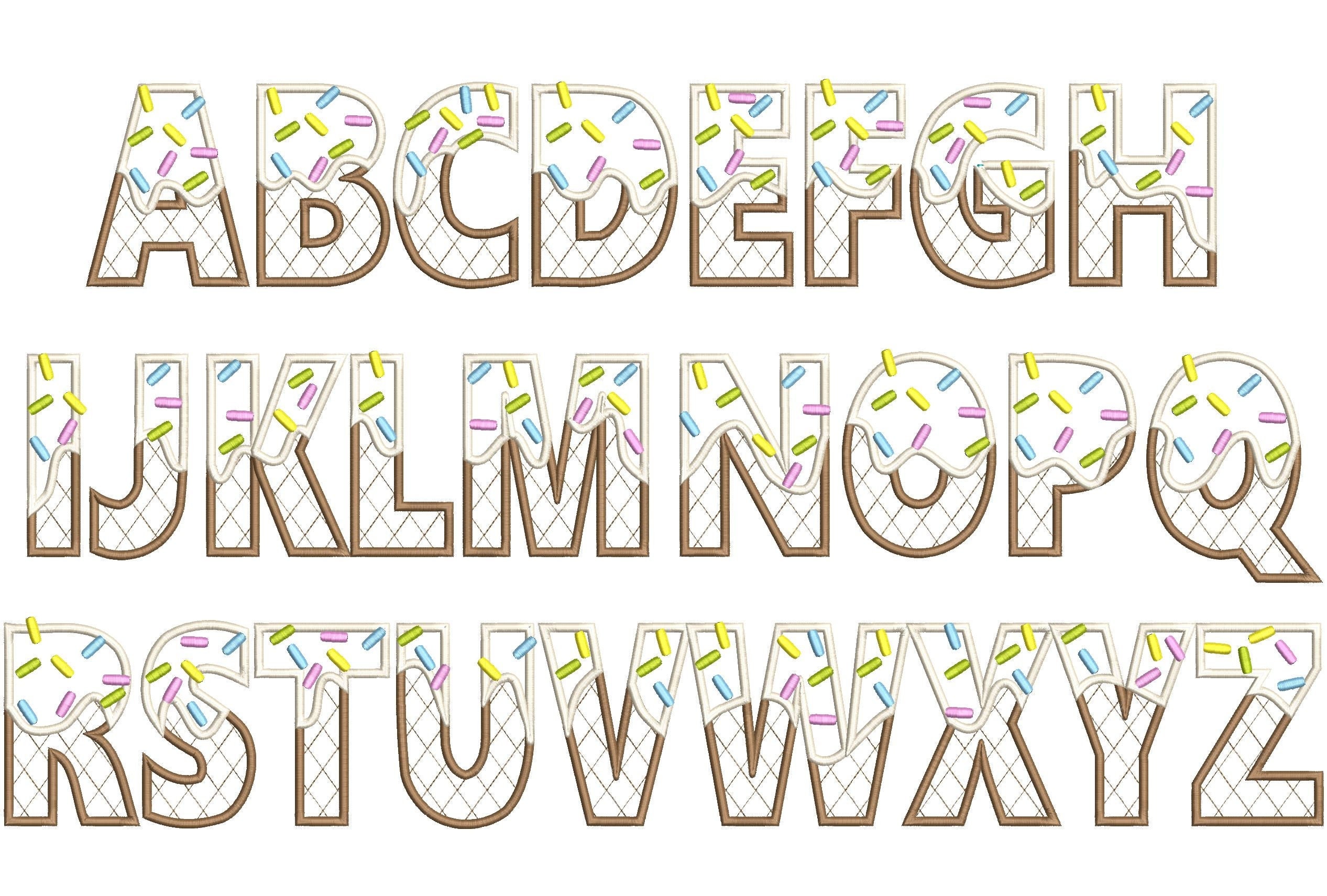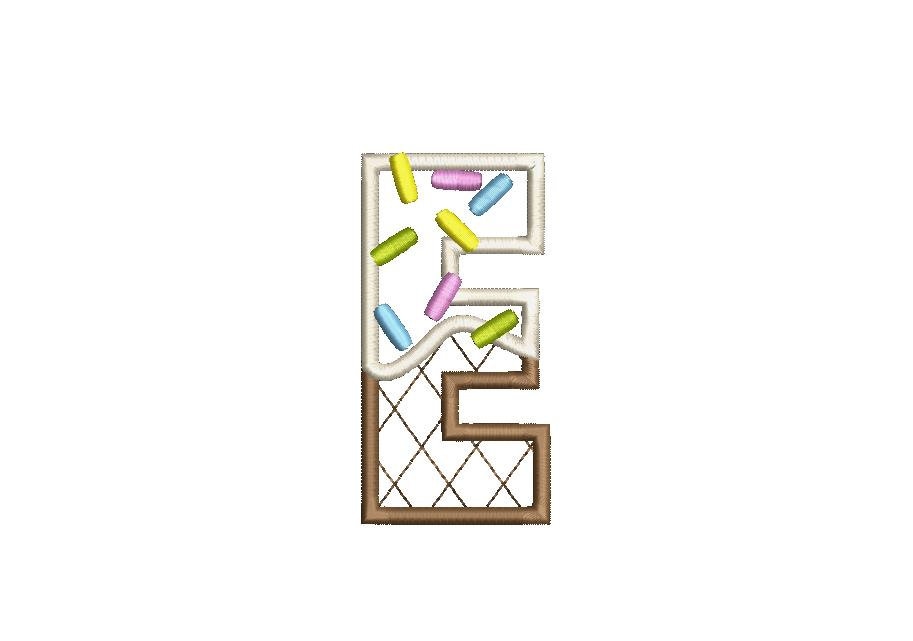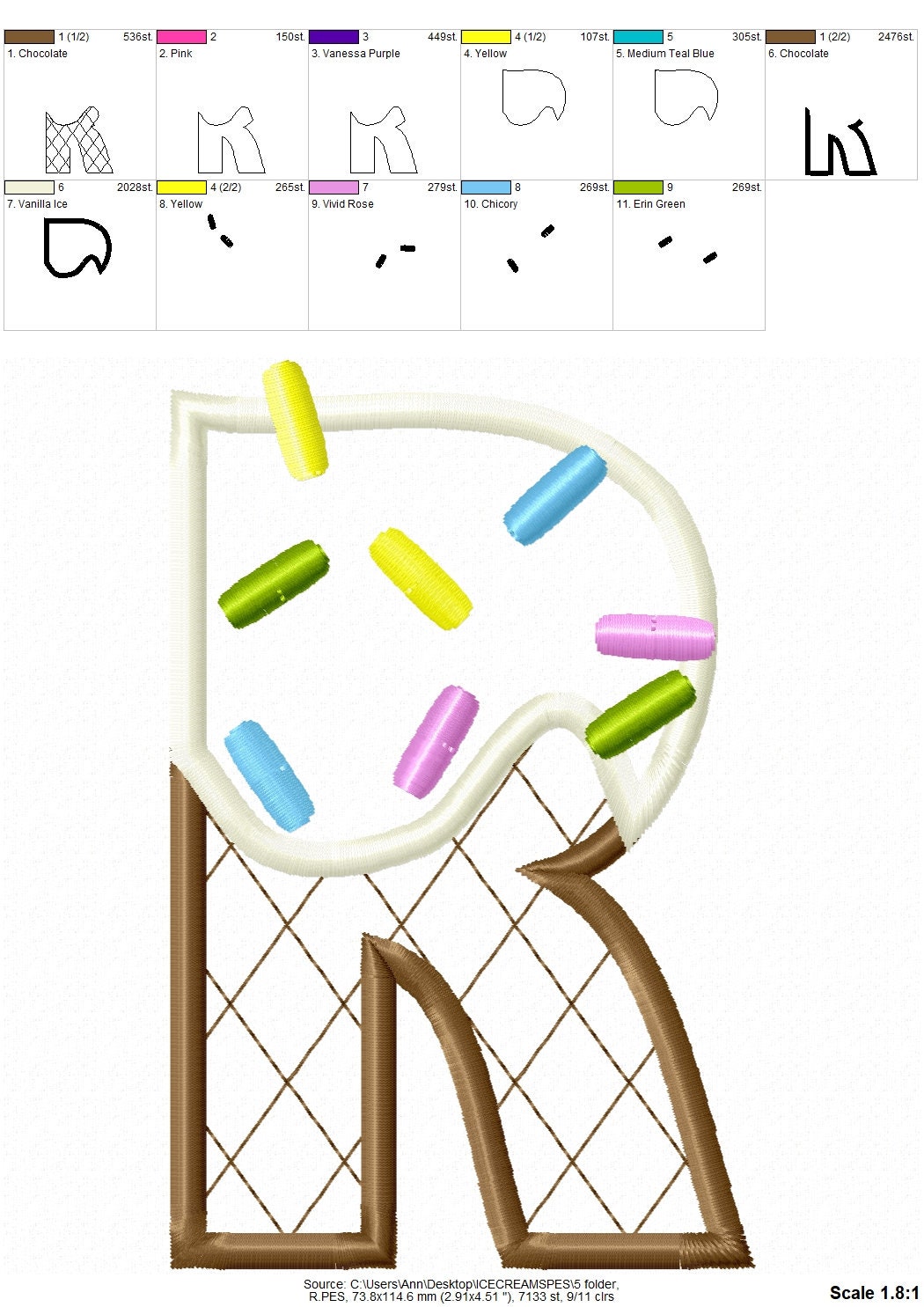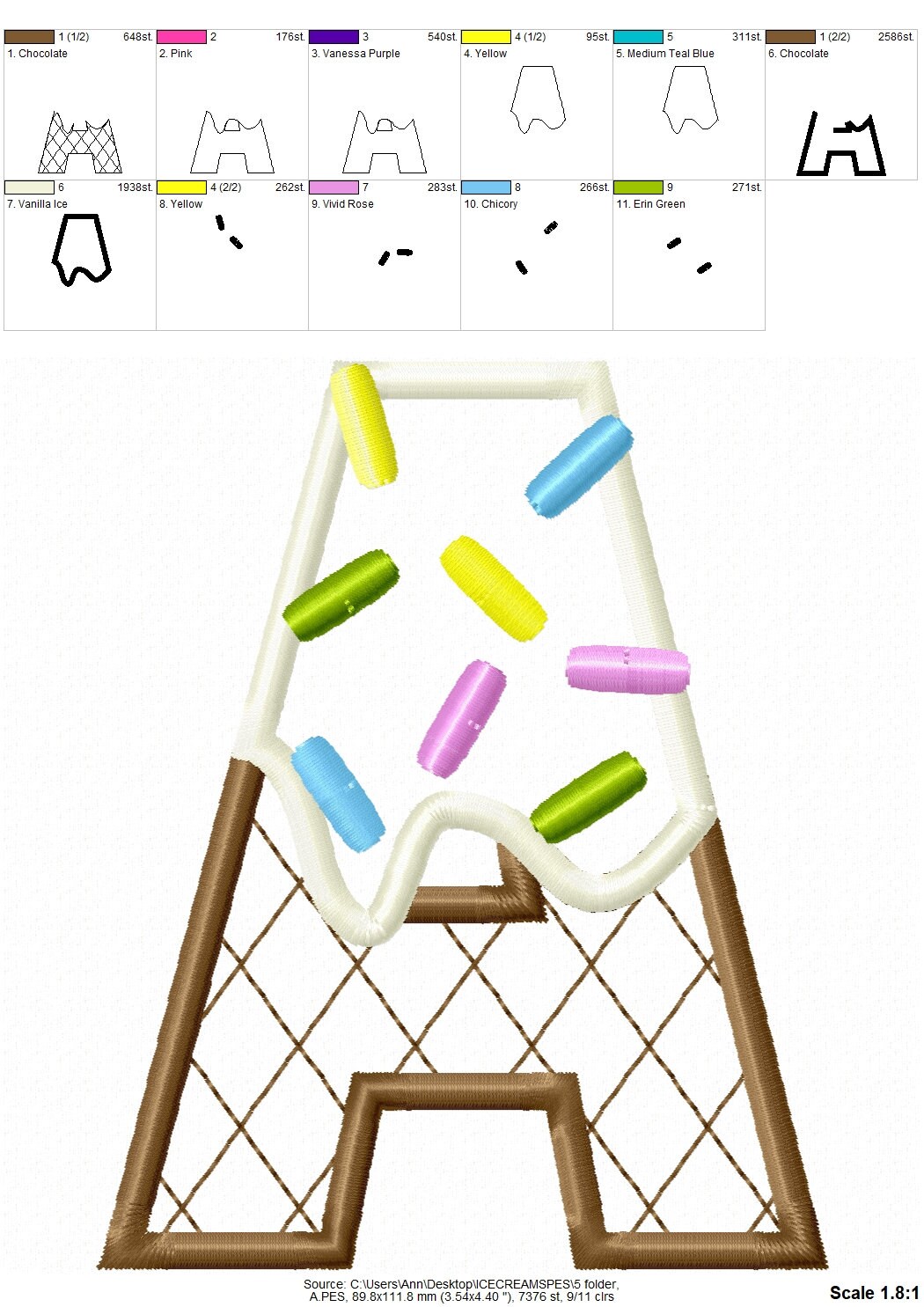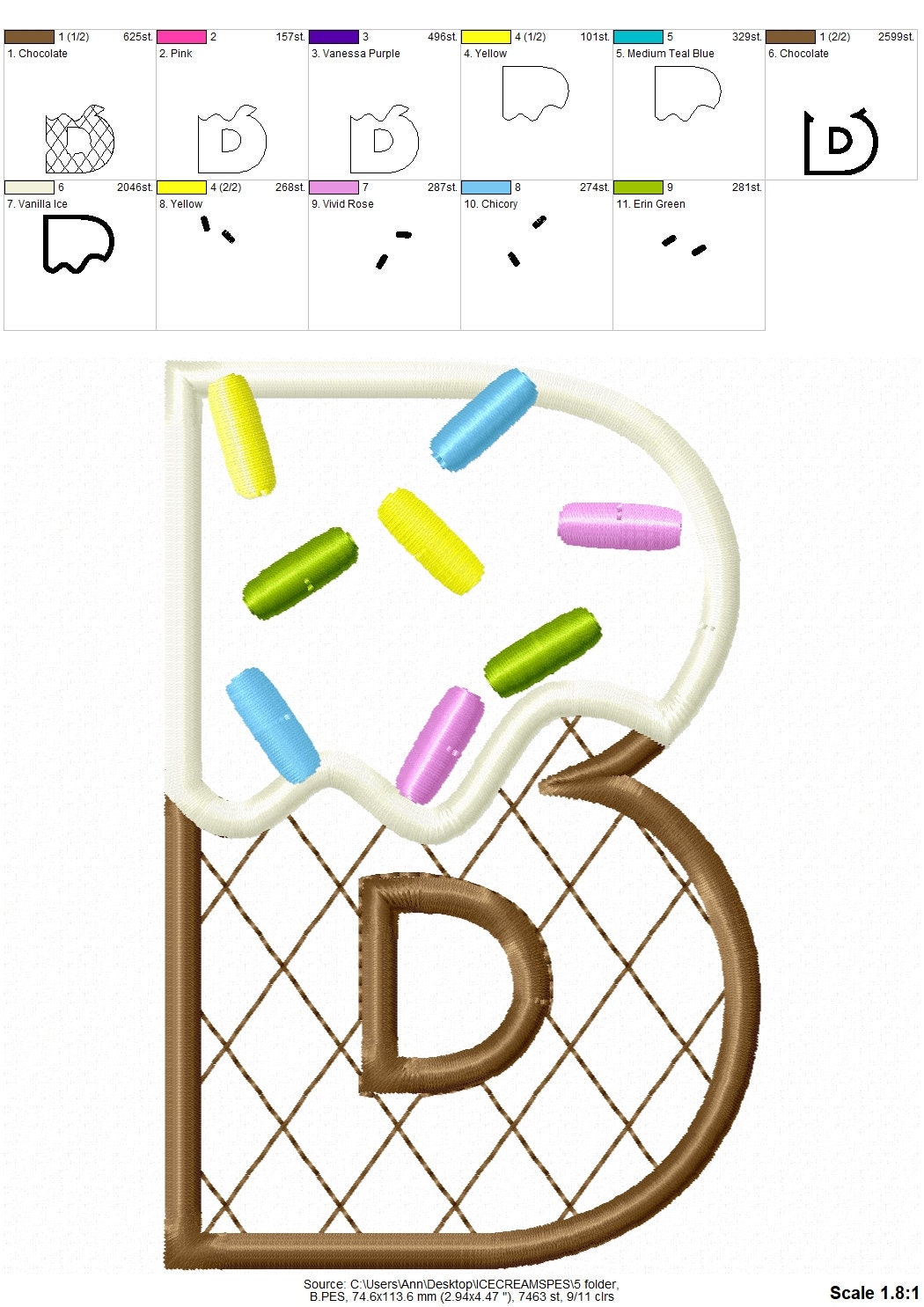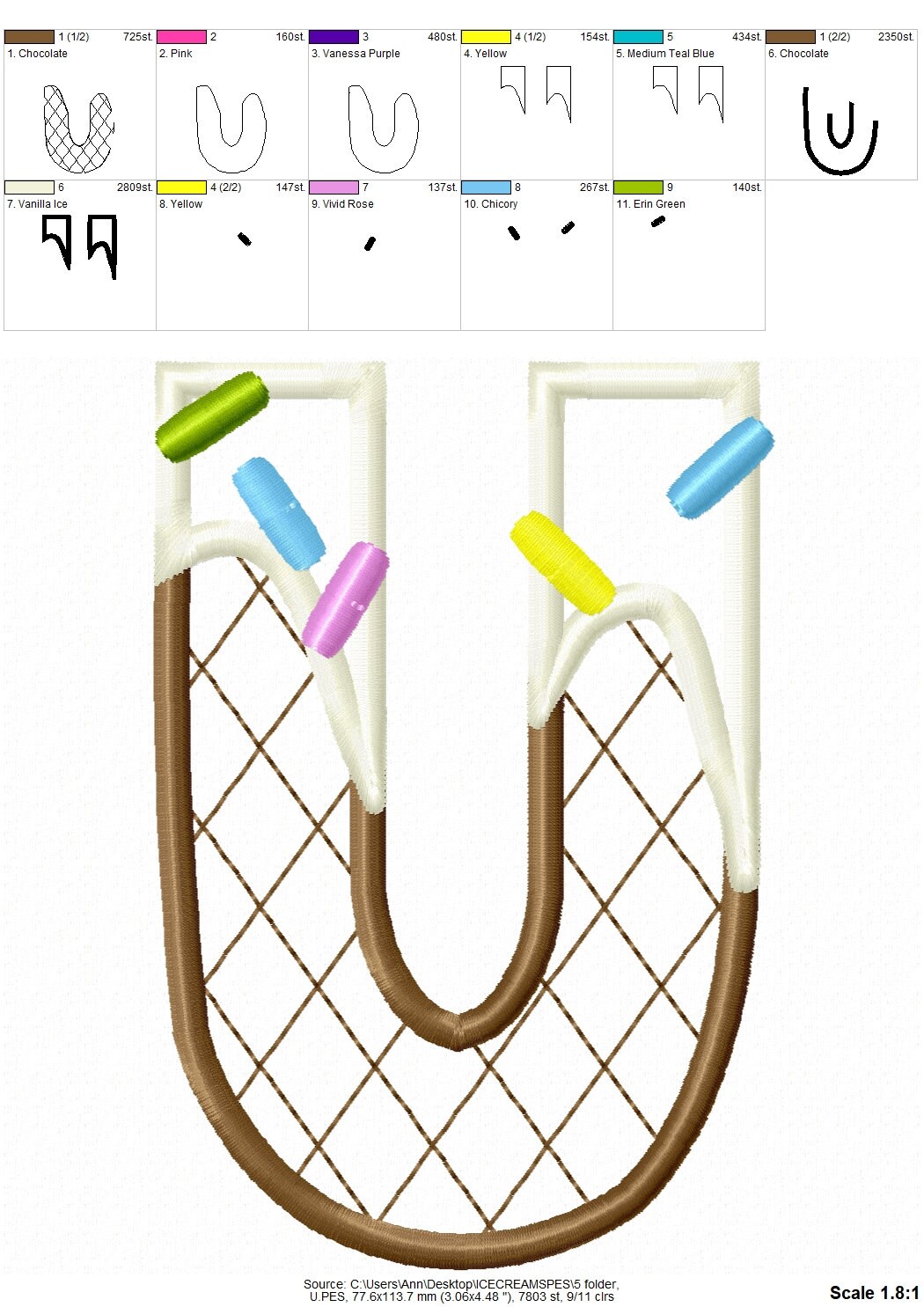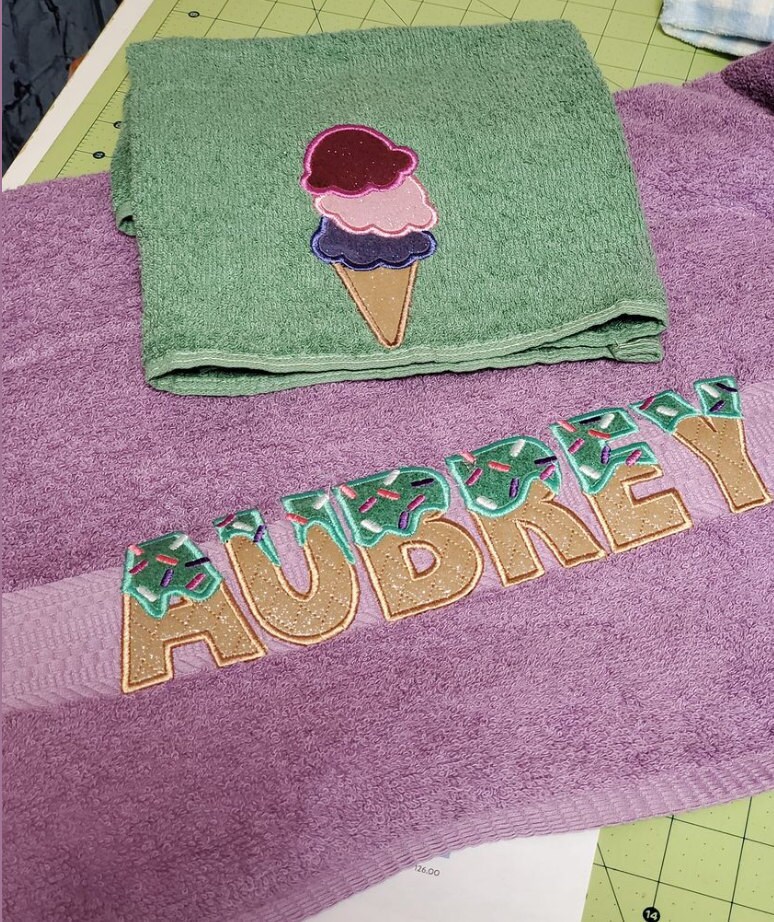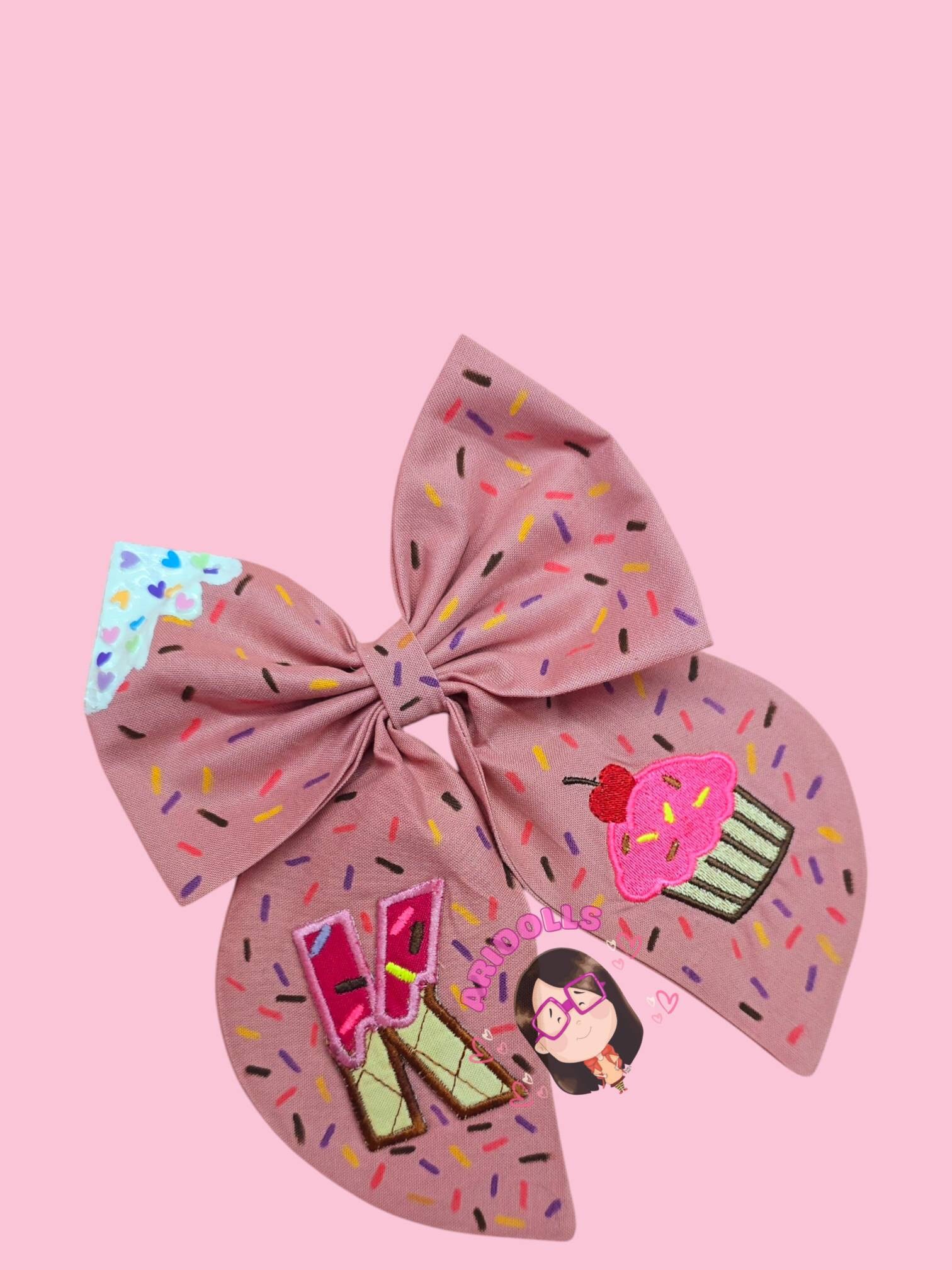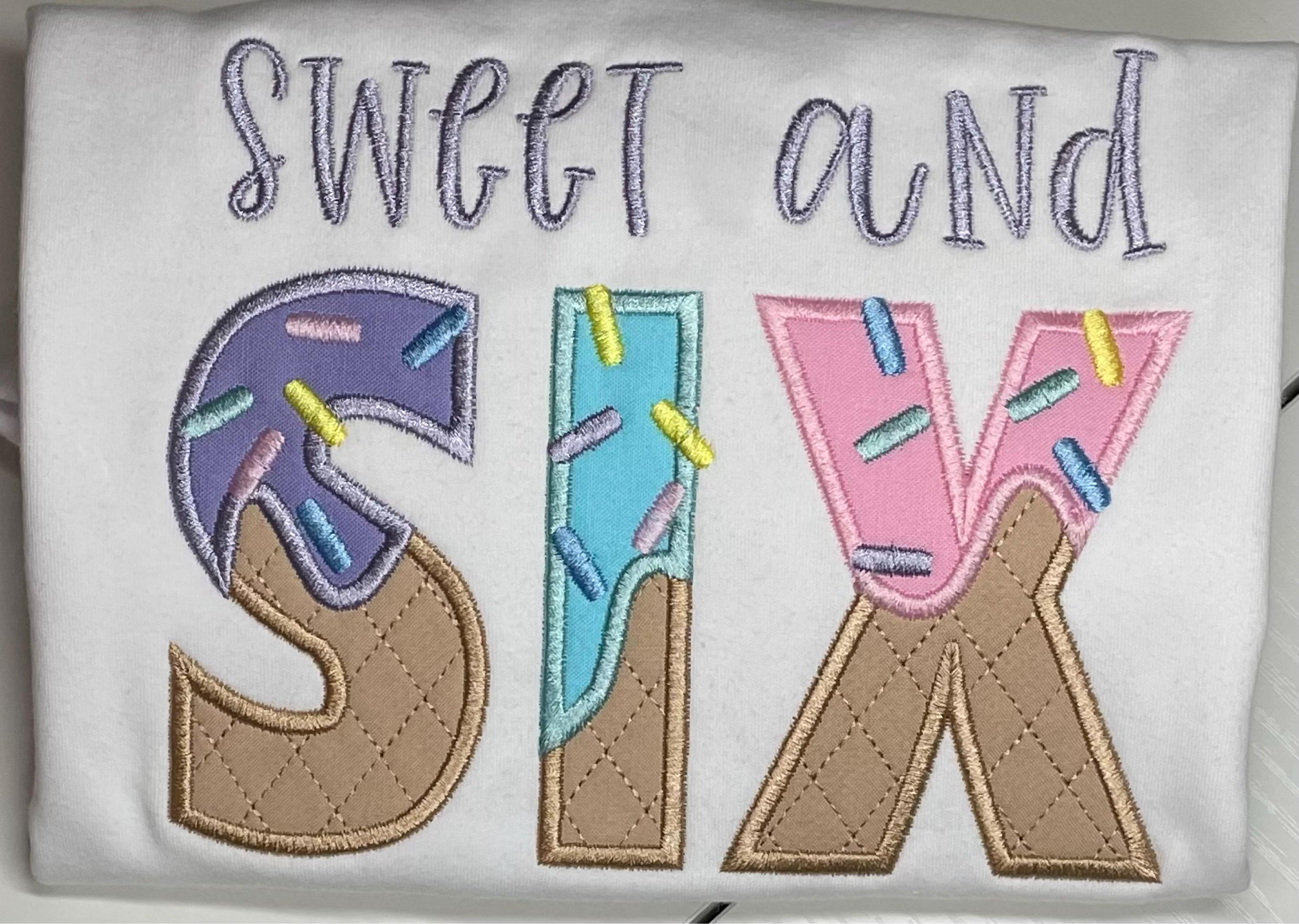
Applique ice cream FONT Alphabet letters in assorted sizes Ice-cream cone kids name monogram machine embroidery designs kids party birthday
Whole alphabet uppercase A-Z